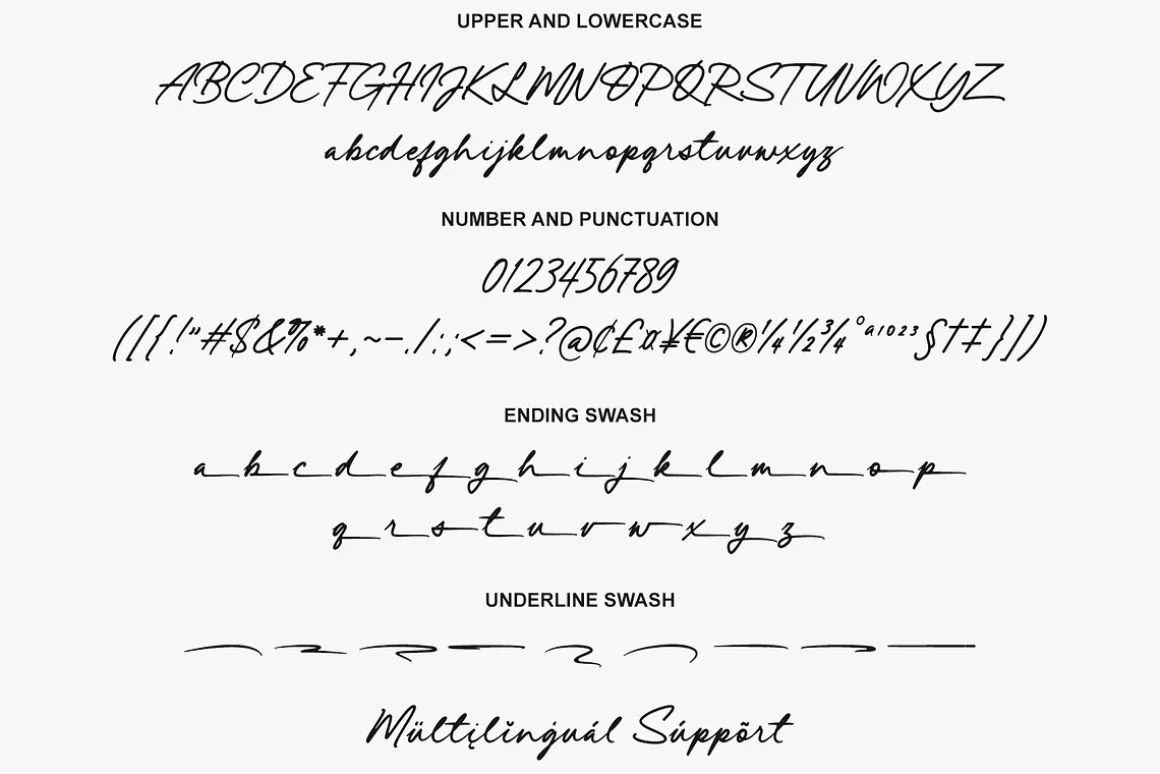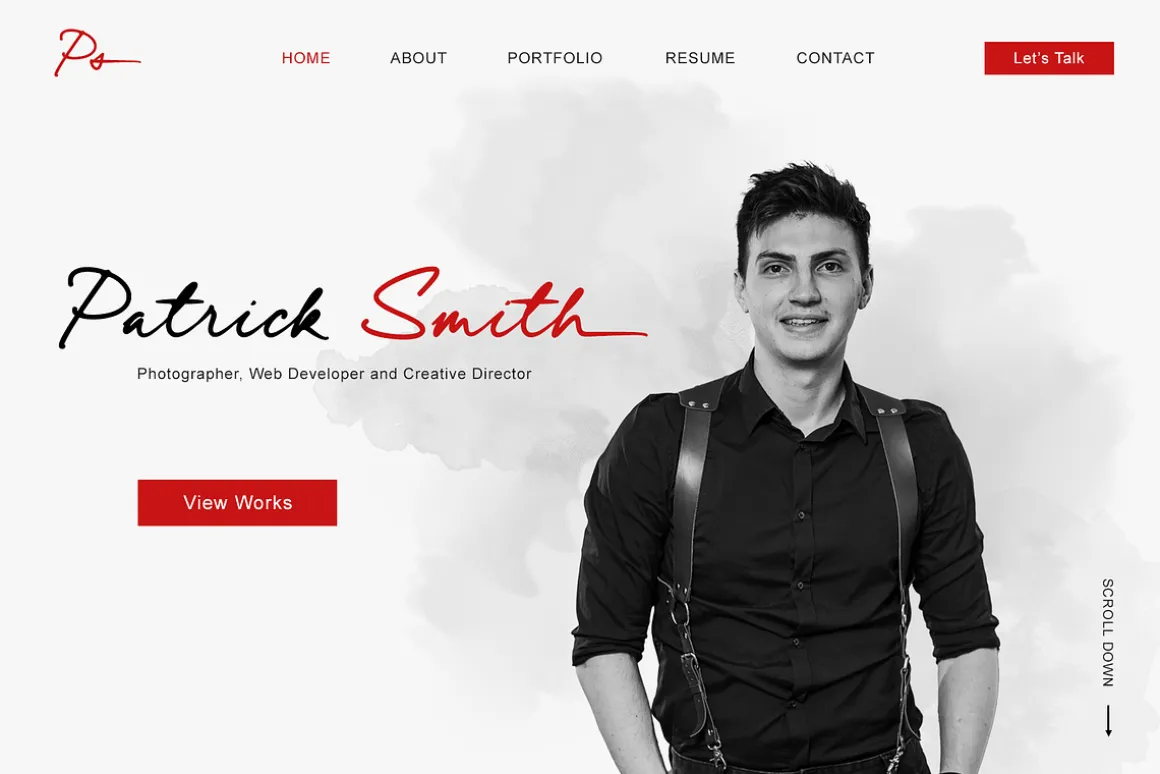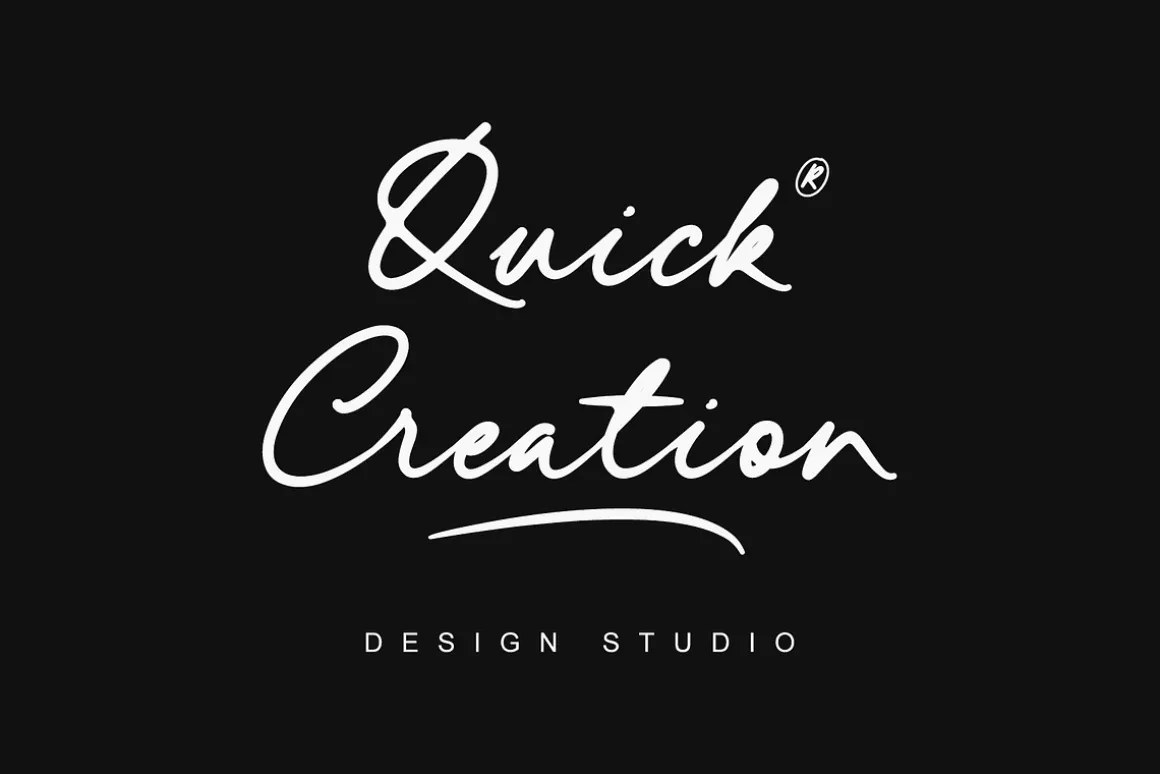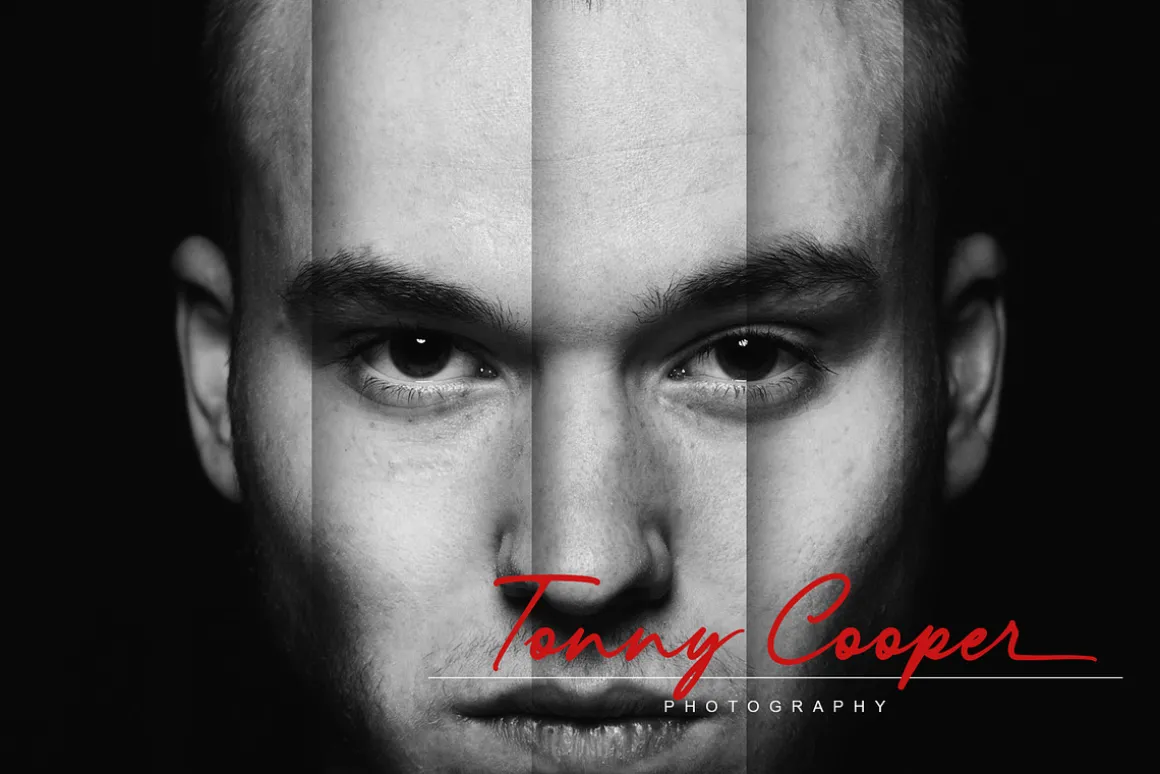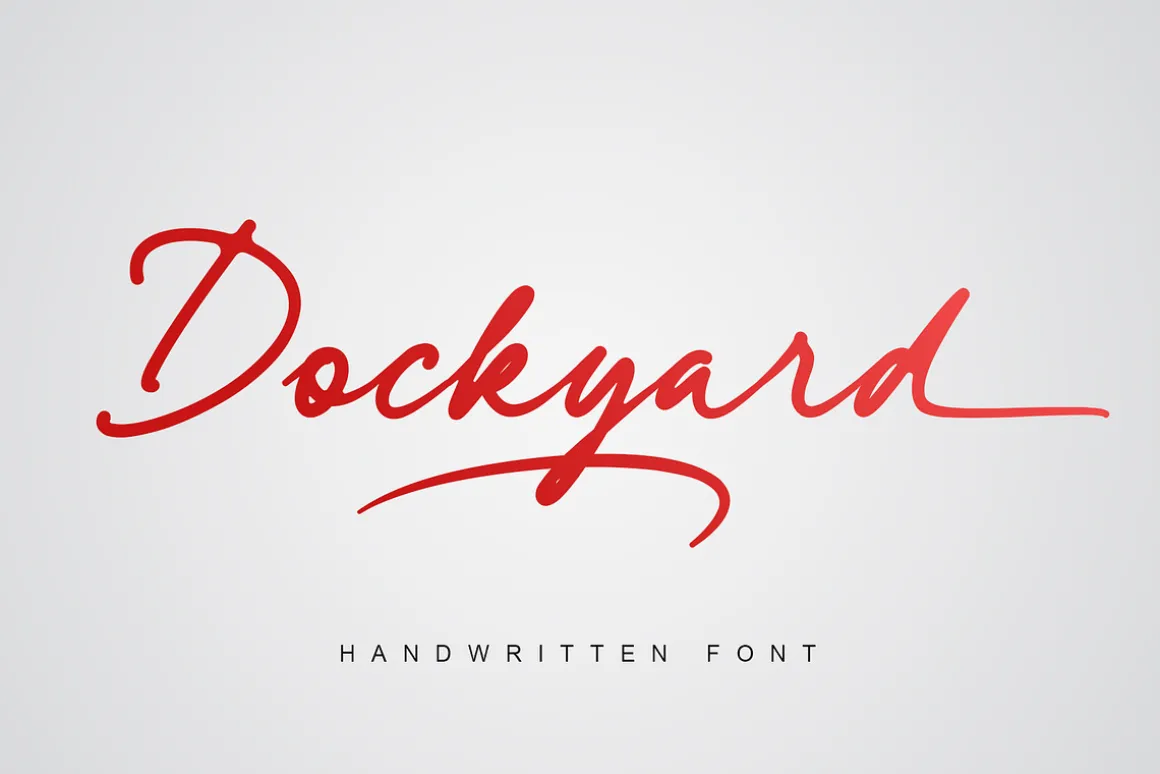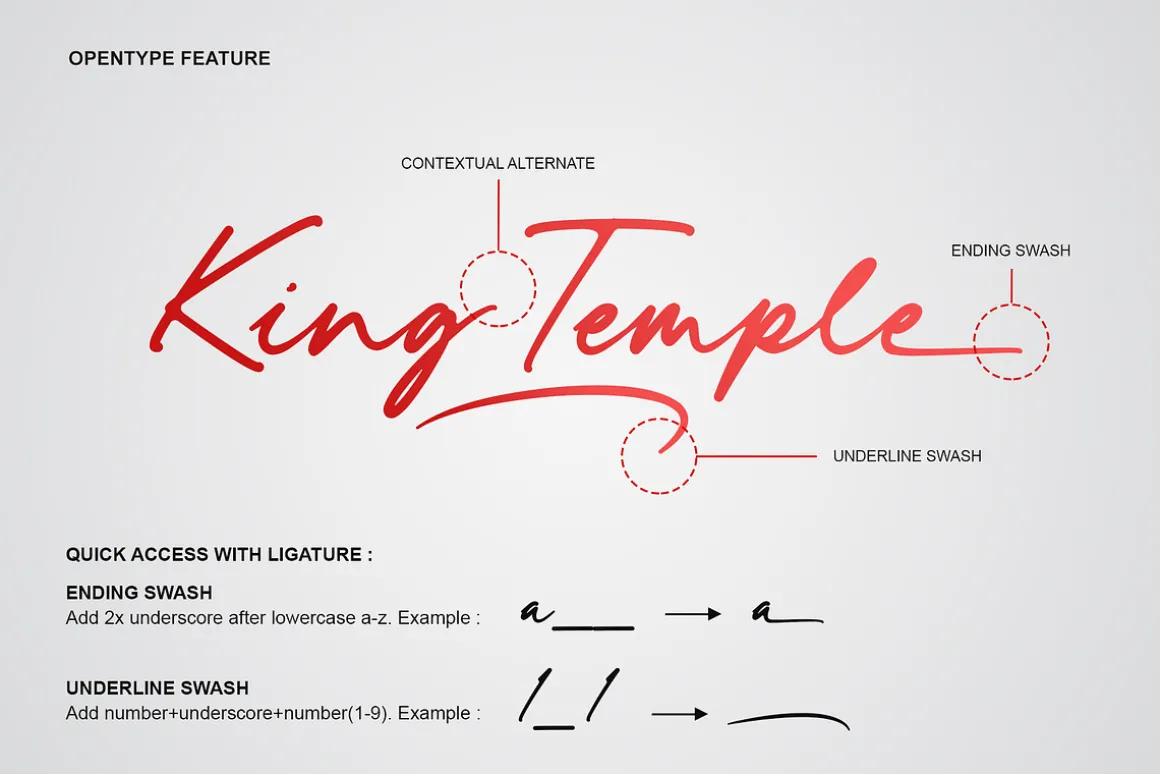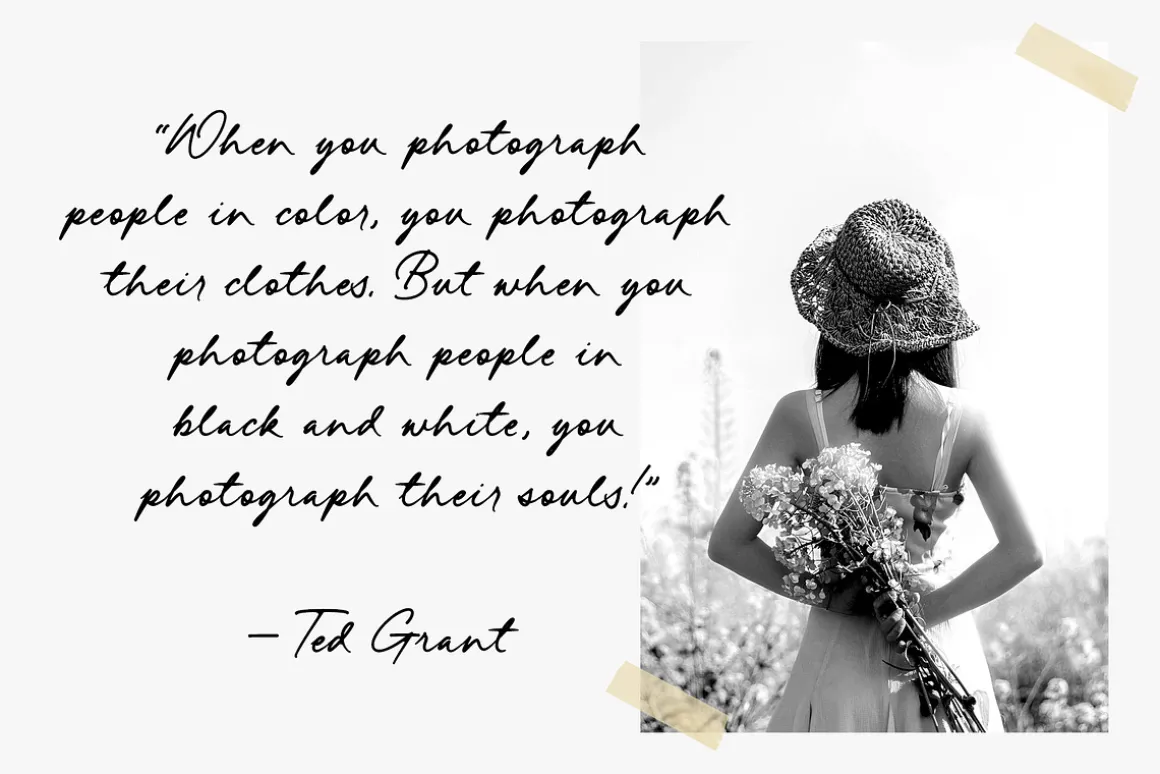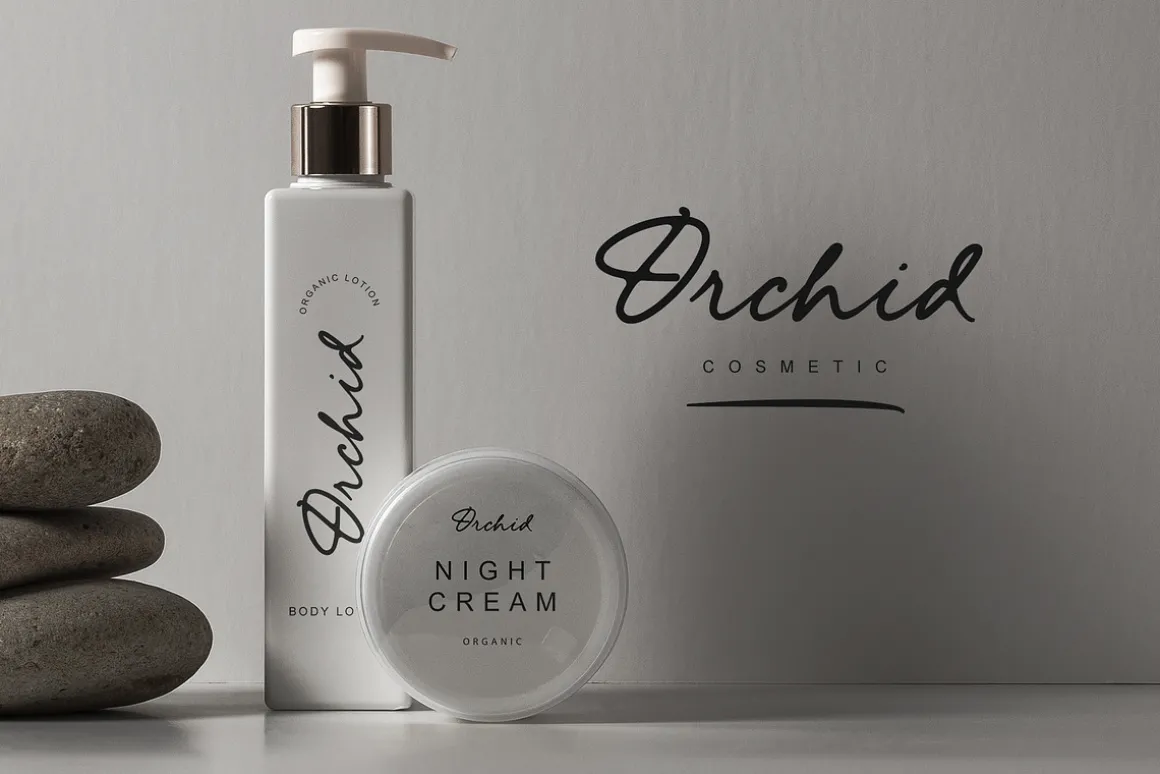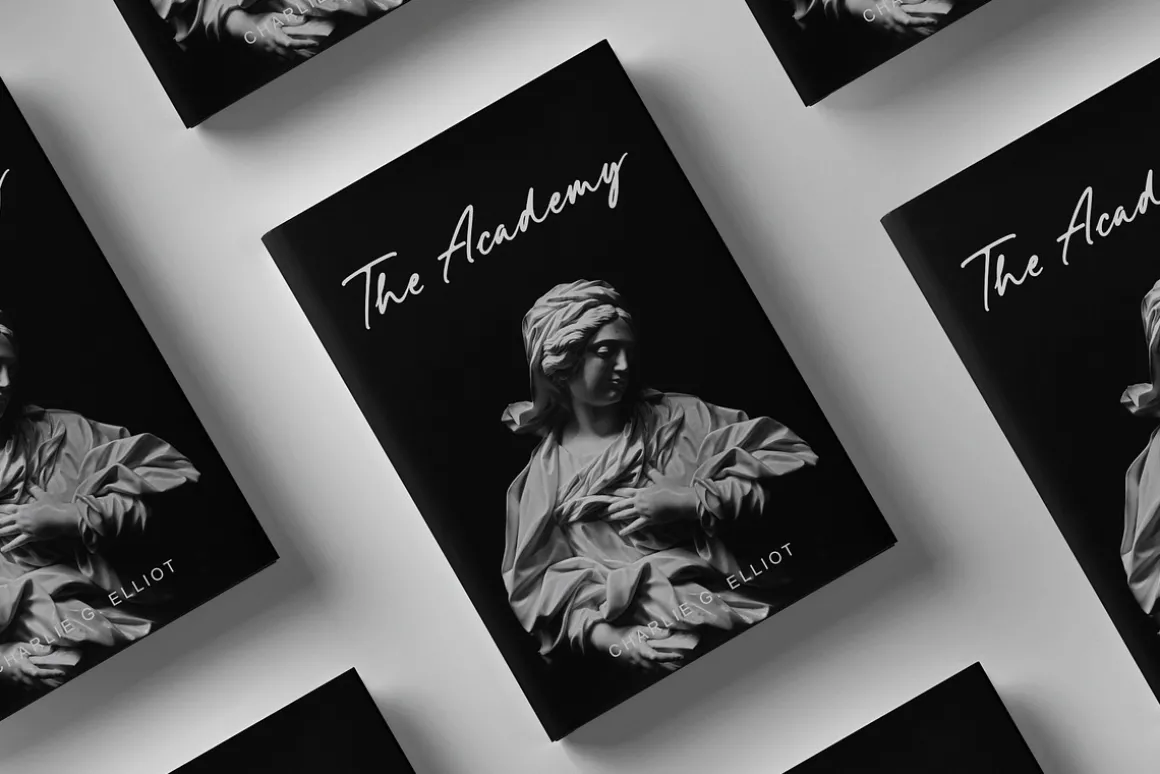
Dockyard is a relaxed handwritten font, has a gentle and beautiful flow. This font is perfect for logo, wedding invitations, stationery, photography, social media posts, product packaging, greeting cards, and much more!
Features
- Ligature
- Swash
- Contextual Alternate
- Numerals and Punctuation
- Multilingual Support
Quick access
- Ending Swash: Add 2x underscore after lowercase a-z. Ex: a__
- Underline Swash: Add number (1-9) + underscore + number (1-9). Ex: 1_1, 2_2, 3_3, 4_4, 5_5, 6_6, 7_7, 8_8, 9_9